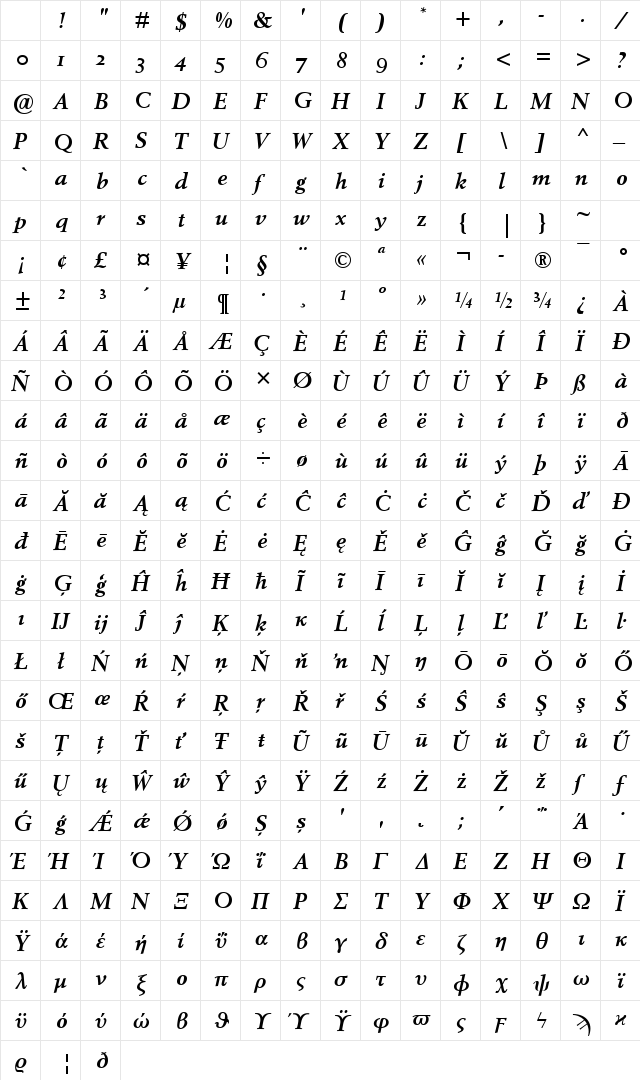
Complete Berling Antiqua Bold Italic glyph index. Displaying only characters natively supported by Berling Antiqua Bold Italic font.
Berling Antiqua is a composed and adaptable typeface that performs quietly and consistently across a wide range of design contexts. The slanted form adds forward momentum and visual energy. Its bold stroke weight gives it real presence on the page.
Pro Tip: Use Berling Antiqua for emphasis, pull quotes, and subheadings where its slanted energy can add rhythm to the layout.